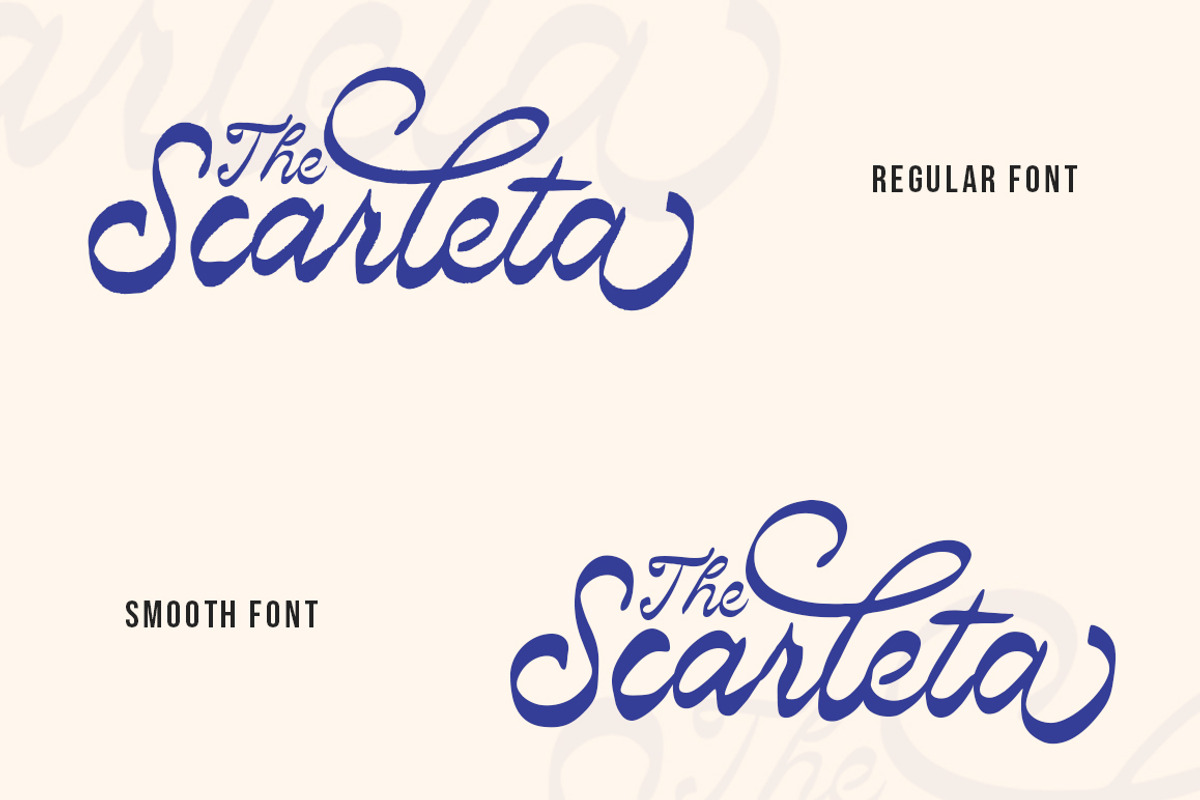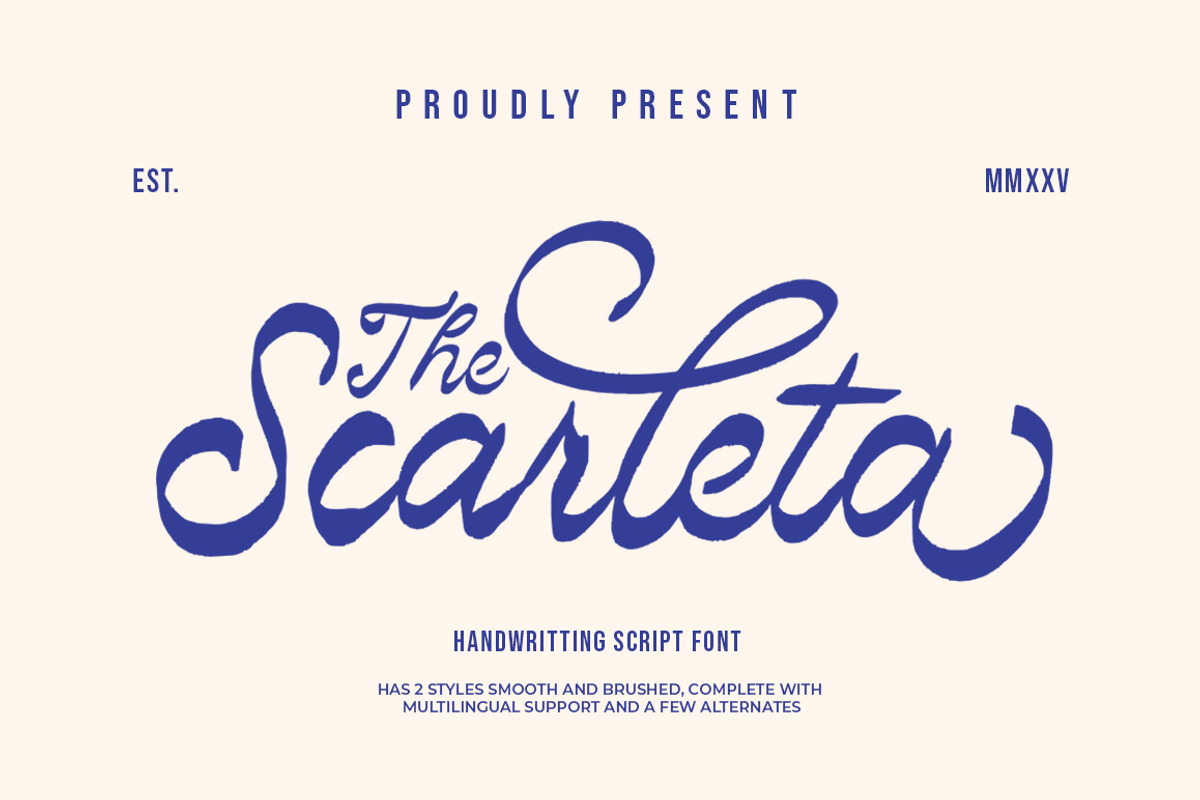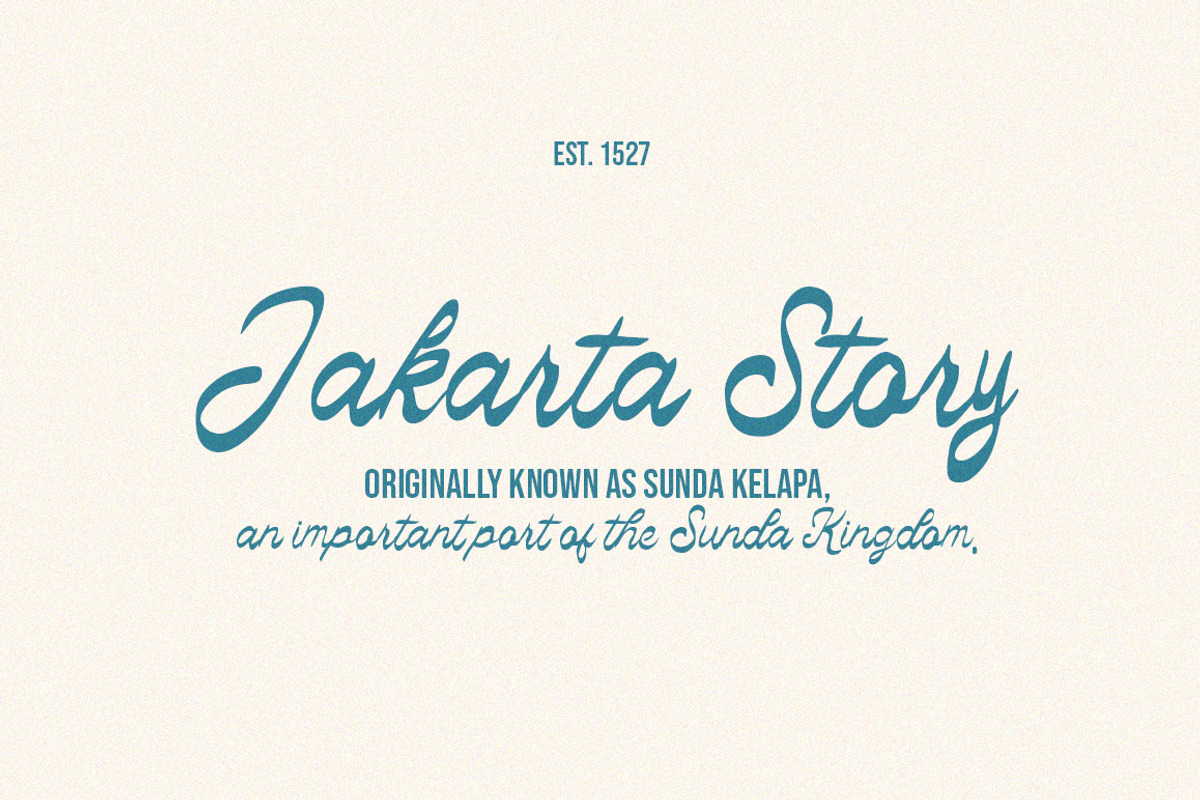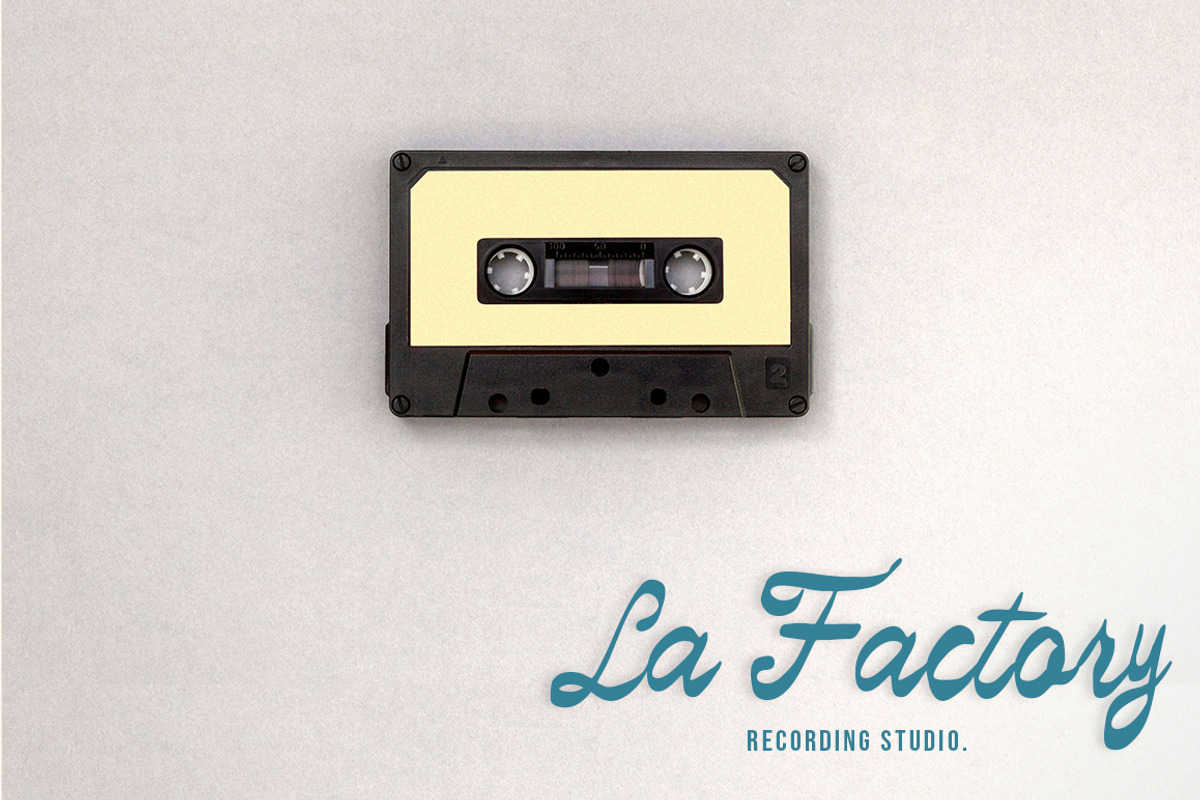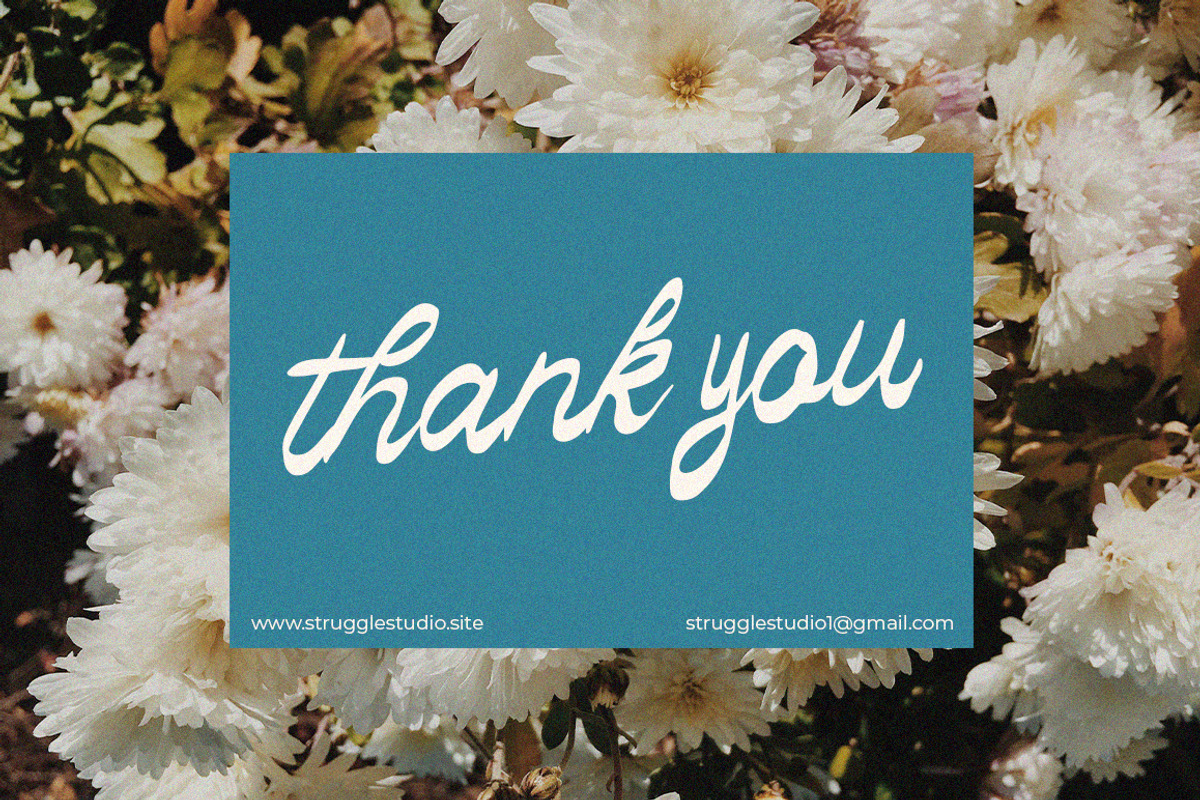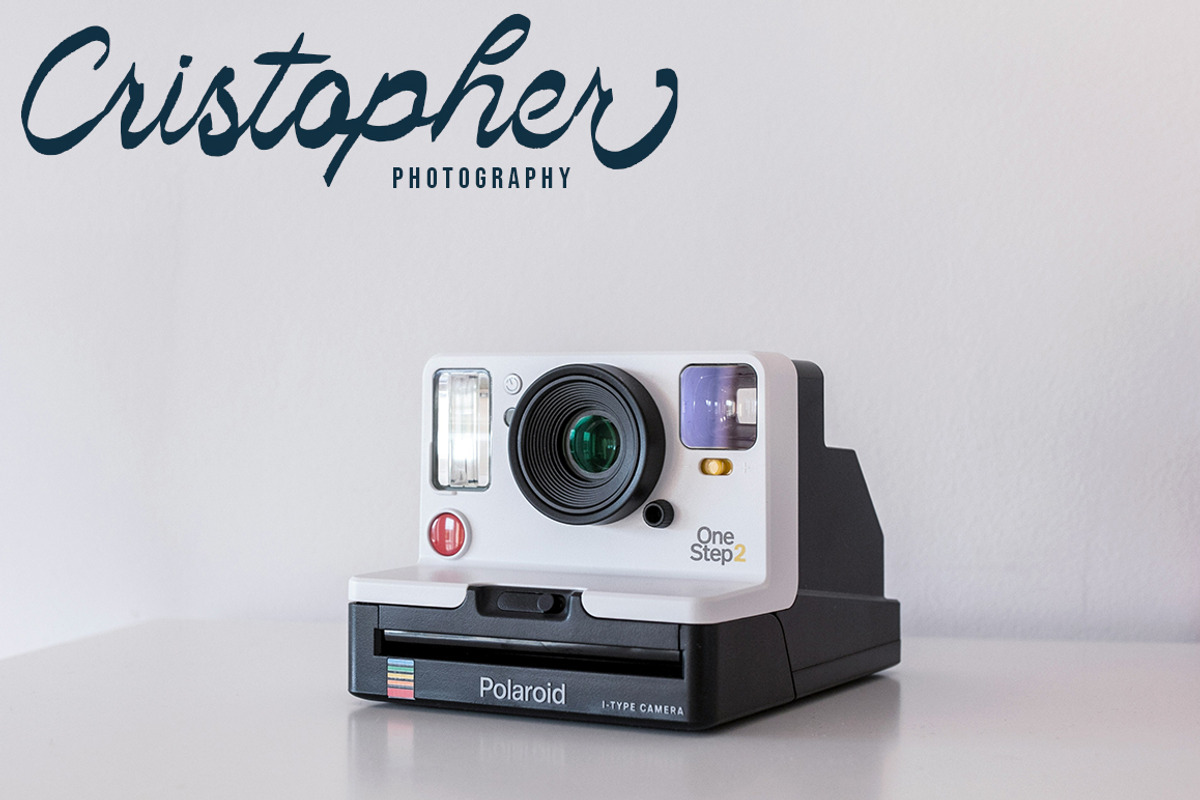
The Scarleta
Scarleta is a bold and elegant handwriting script font that exudes charm and creativity. Featuring smooth curves and stylish strokes, this typeface comes in two distinctive styles: Smooth and Brushed. With its fluid, calligraphic design, it is ideal for branding, packaging, invitations, logos, and display titles. The font supports multiple languages and includes a selection of alternates, making it versatile and adaptable for a wide range of creative projects.